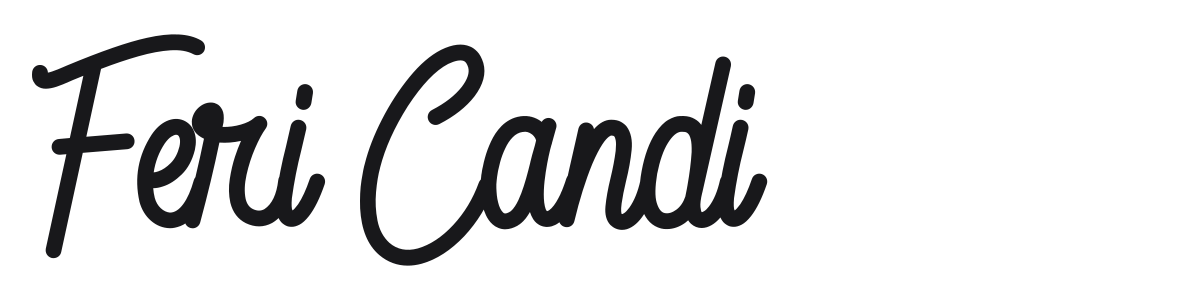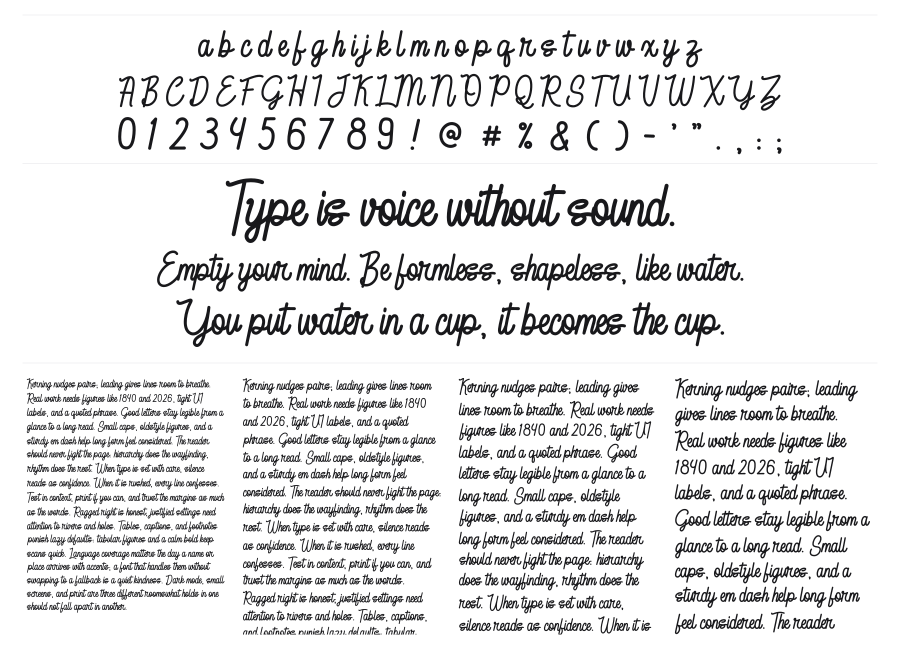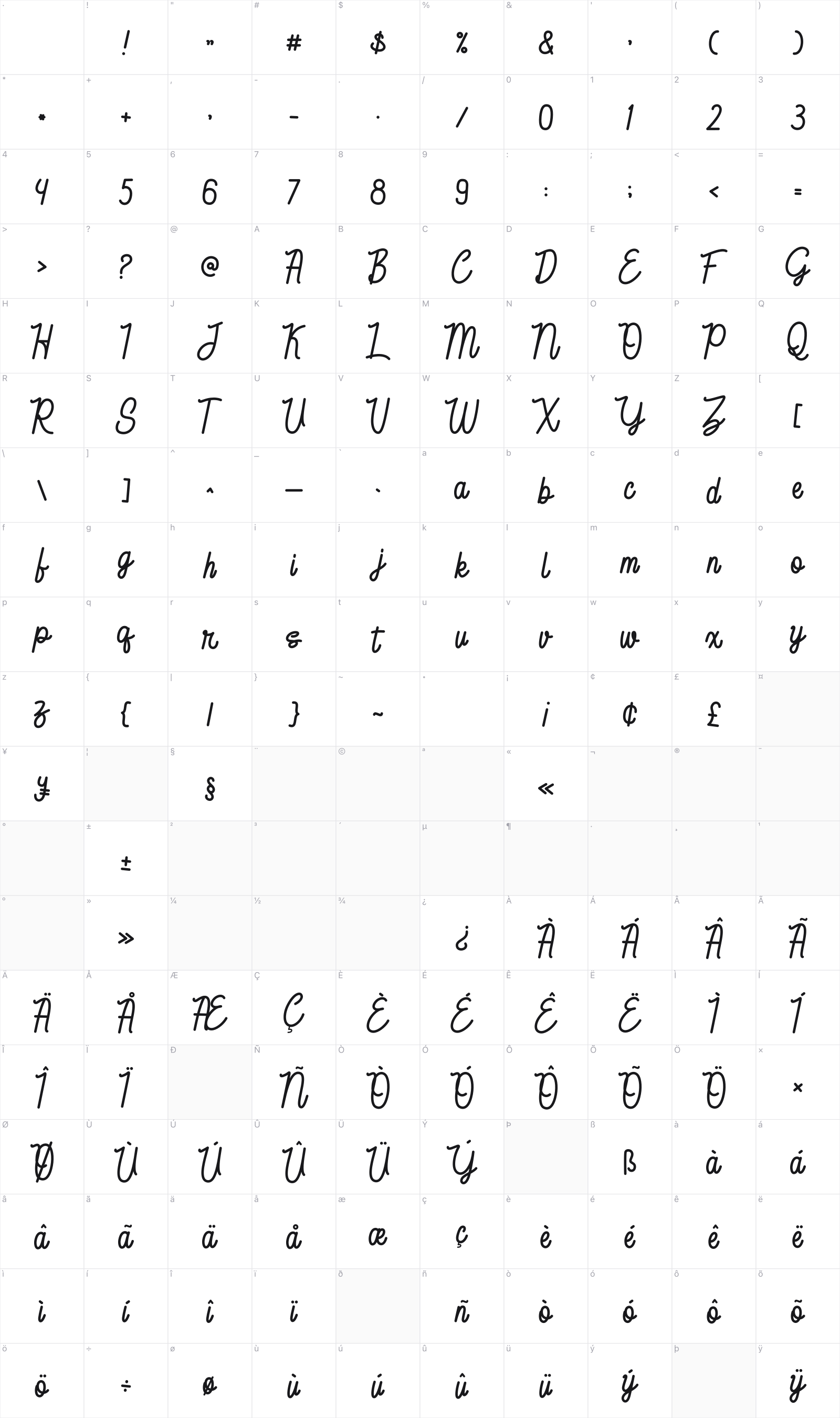
Feri Candi
Feri Candi is a bold connected casual script with thick rounded strokes and a warm hand-lettered character. The continuous flowing connections and chunky monoweight construction evoke mid-century American lettering traditions. It carries a relaxed confidence that works well in branding, packaging, and editorial headlines.